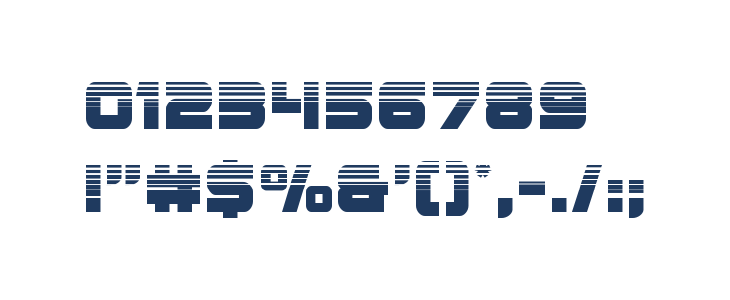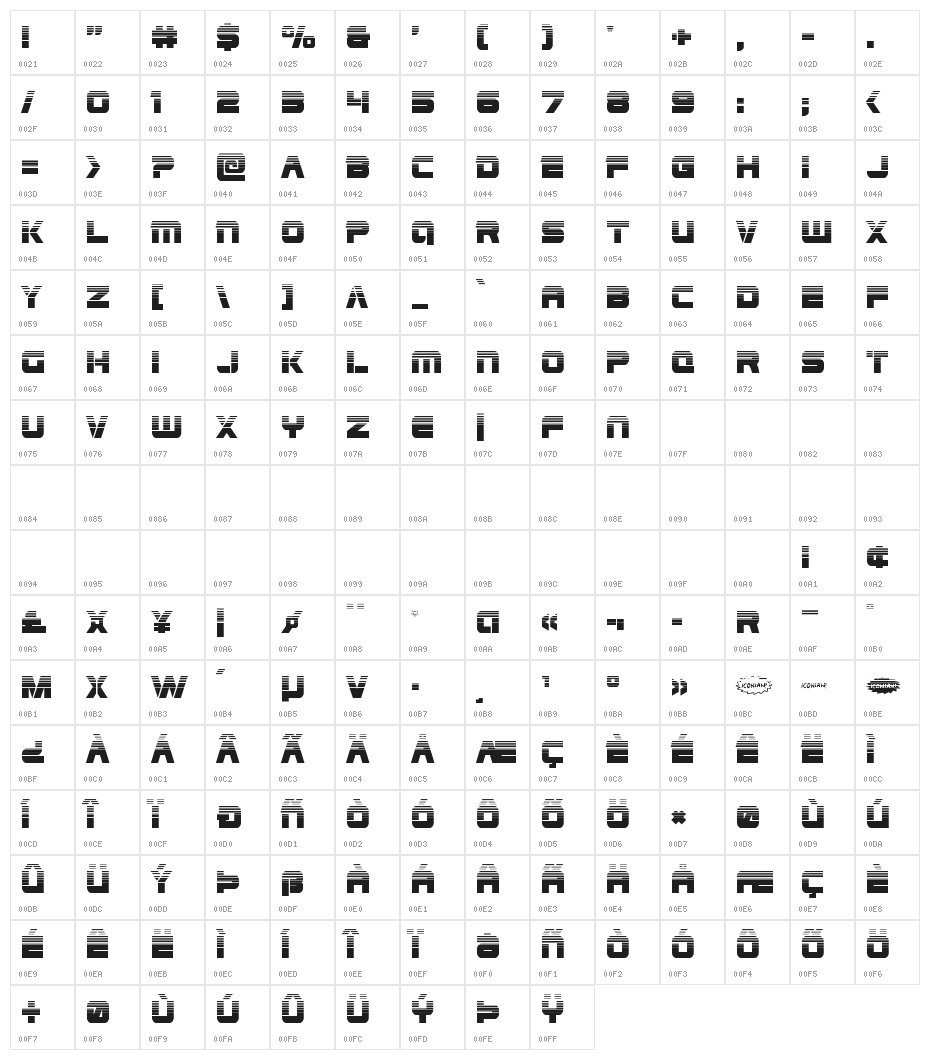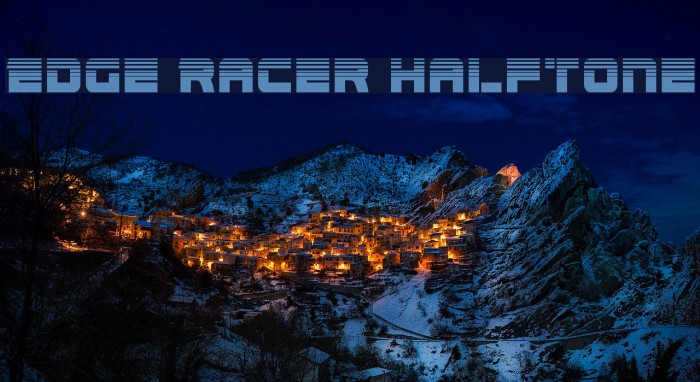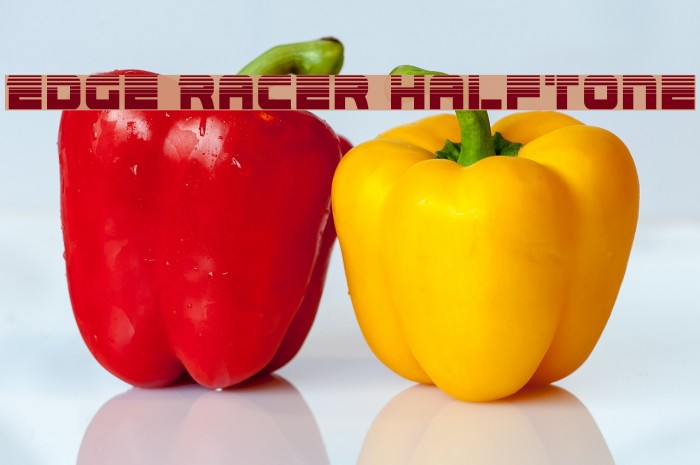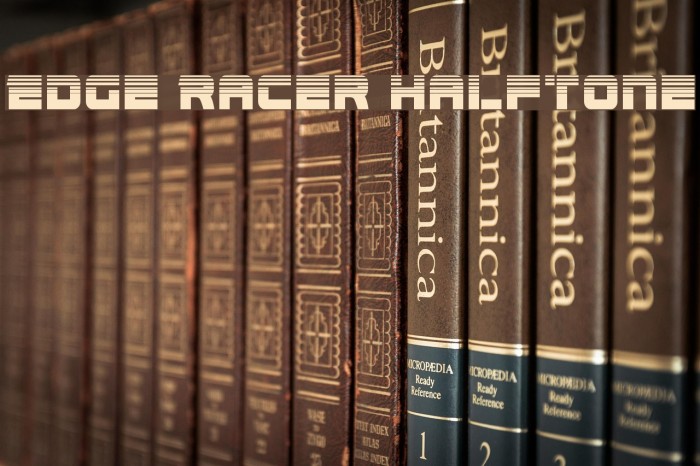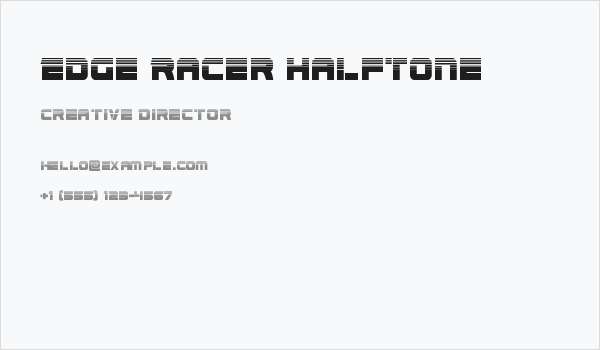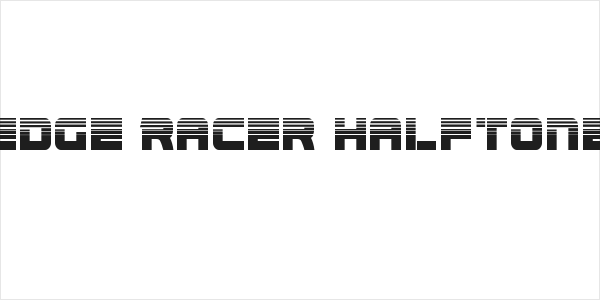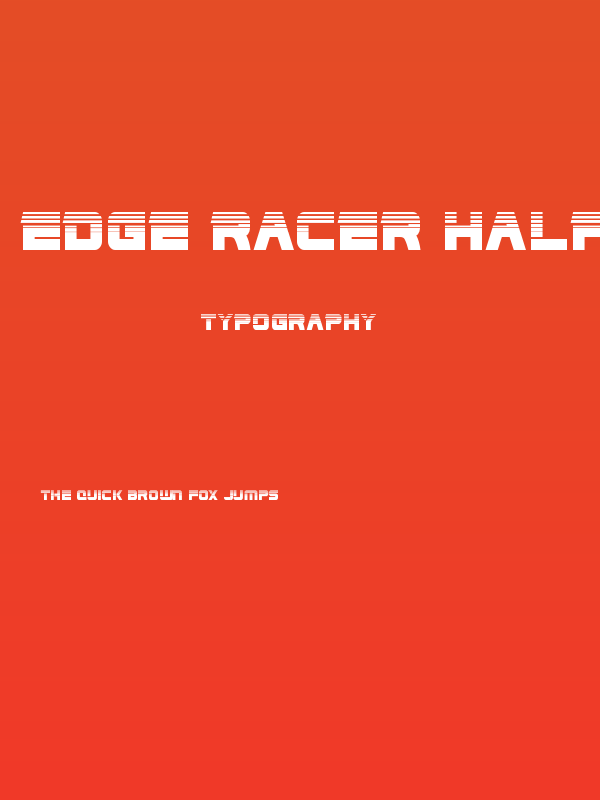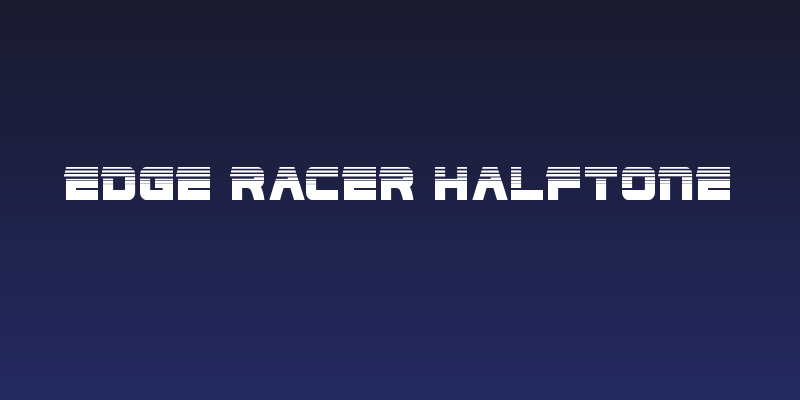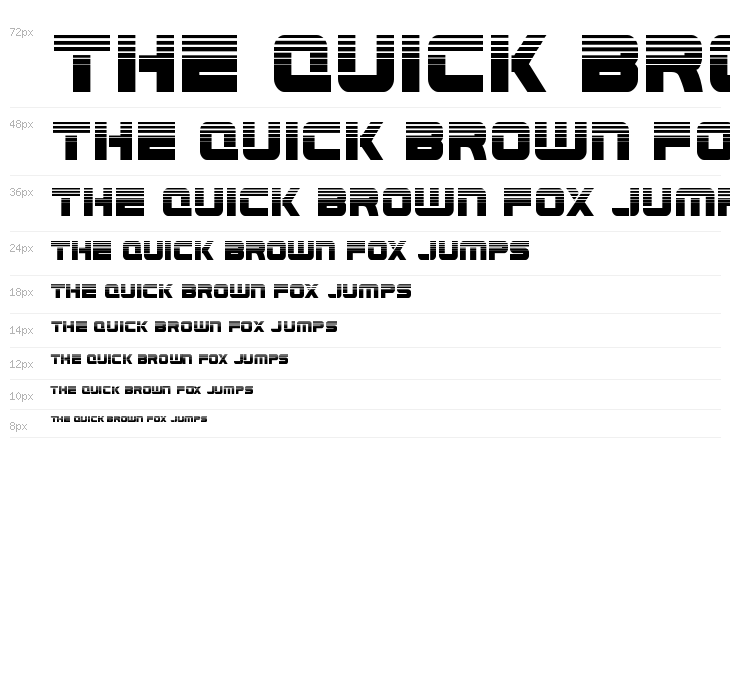
Edge Racer Halftone Font
Edge Racer Halftone Description
This font features a bold, futuristic design with a distinctive halftone effect that creates a sense of speed and movement. The characters are constructed with thick, solid strokes that are interrupted by horizontal lines, giving them a dynamic, racing-inspired appearance. The uppercase letters are particularly striking, with sharp angles and a geometric structure that enhances the modern aesthetic. The numerals and special characters maintain this cohesive style, ensuring versatility across various applications. The overall look is both eye-catching and functional, making it suitable for projects that require a strong visual impact.